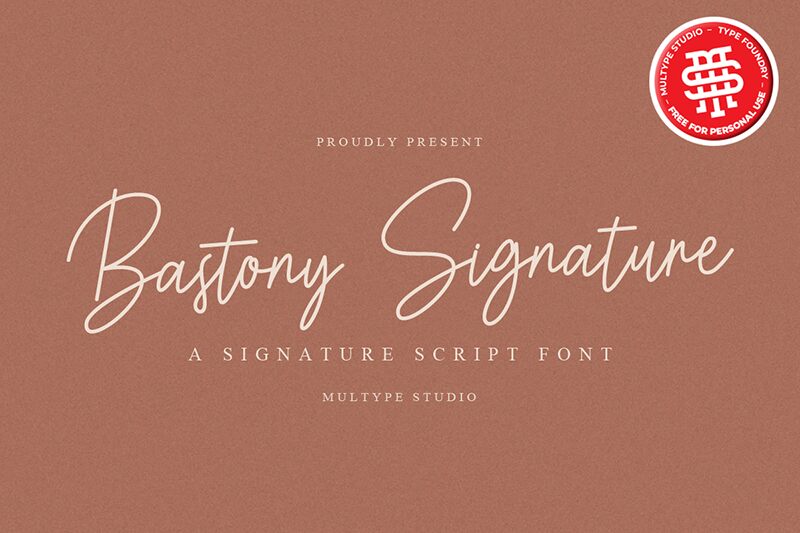
Bastony Signature
Bastony Signature, created by the talented artisans at Multype Studio, embodies the quintessence of sophistication and a personal touch in its handwritten style.
With its extra-light weight, this font dances across the page with unique curves and an elegant inky flow that captures the essence of bespoke craftsmanship. The versatility of Bastony Signature shines through its suitability for a wide range of creative endeavors. Whether it's adding a touch of class to photography watermarks, elevating social media posts, or crafting distinctive logos and branding materials, this font infuses every project with its charming character.
Beyond commercial use, Bastony Signature is an ideal candidate for personalizing invitations, stationery, wedding designs, and product packaging—making it a go-to choice for those moments that require a special handwritten appeal.